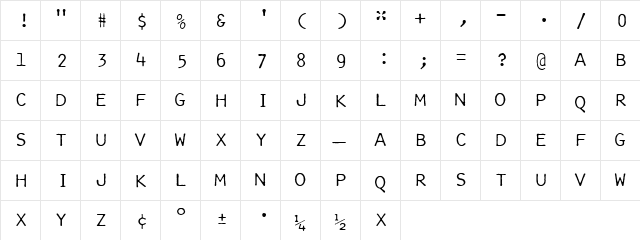
IBM Selectric Manifold Regular
Design Context for IBM Selectric Manifold Typeface
IBM Selectric Manifold channels digital-age aesthetics through its sharp, structured letterforms — ideal for brands that want to signal innovation.
Pro Tip: Use IBM Selectric Manifold in combination with a neutral sans for body text. Let it define the brand voice in headlines while keeping reading comfortable elsewhere.